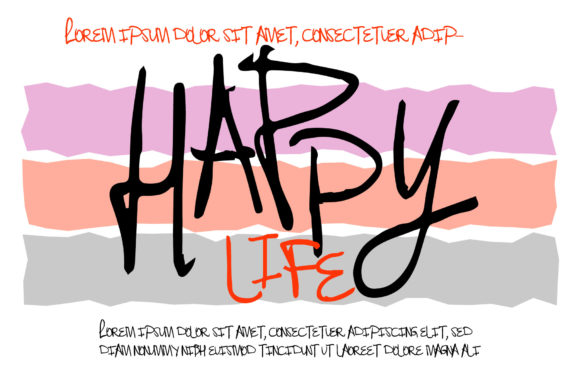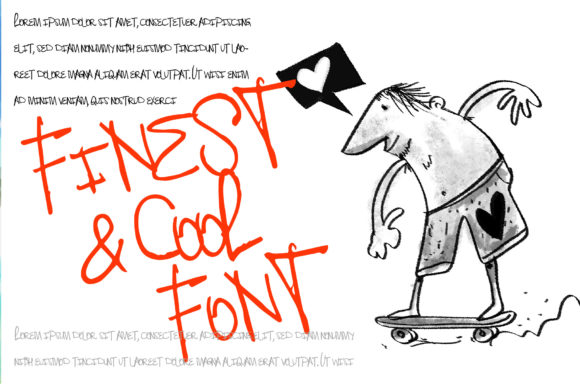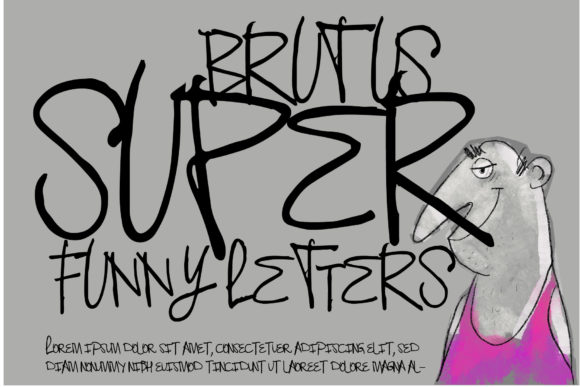
The Brutus Font: A Quirky, Handwritten Gem for Creative Projects
I’ll never forget the time I was working on a branding project for a crafty client, and I just couldn’t find the right font to capture her playful, artistic vibe. She wanted something that would stand out on busy backgrounds and make her handmade products pop. That’s when I stumbled upon the Brutus font, and it was love at first sight! 💕
Brutus embodies fun, quirkiness, and authenticity, making it the perfect addition to any creative project. This enchanting handwritten font has a way of turning any idea into a true standout. Whether you’re a designer, crafter, or creative hobbyist, Brutus is sure to become your new go-to font.
What I Love About Brutus ✨
- ✅ Unique, hand-crafted feel that adds a touch of personality to any project
- ✅ Highly legible, even on busy backgrounds or small sizes
- ✅ Versatile and adaptable, suitable for a wide range of creative applications
- ✅ Beautifully designed with a keen eye for detail and aesthetics
- ⚠️ Some users may find the font a bit too playful or informal for certain projects
- ⚠️ Limited availability of extended language support or special characters
The Story Behind Brutus: Designer Inspiration
According to its creator, Brutus was designed with the intention of capturing the carefree spirit of handwritten typography. The designer wanted to craft a font that would be both fun and authentic, with a unique personality that would shine through in any project. Whether or not that’s true, one thing is certain: Brutus has become a beloved font among creatives worldwide.
Q: Is Brutus a difficult font to read?
A: No, Brutus is highly legible, even at small sizes. Its clear, hand-crafted design makes it easy to read and understand.